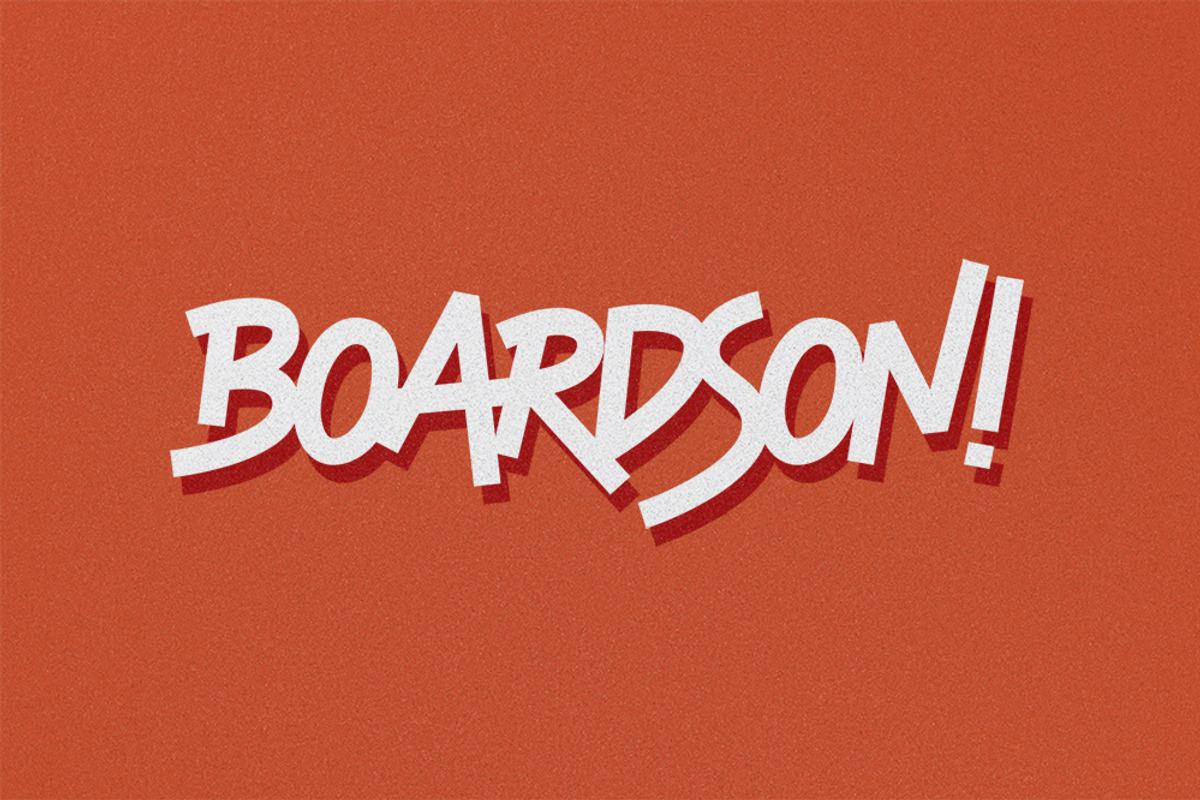
Boardson Type Font Free Download is a bold and vintage-inspired typeface designed to make a strong impression in branding and display design. Please note, you are required to purchase this font for commercial use. It is available for free download for testing and personal projects only.
With its solid structure, classic lettering style, and rugged personality, Boardson is perfect for logos, posters, apparel, packaging, signage, and editorial titles. It evokes a handcrafted, heritage feel—ideal for brands that value authenticity, tradition, and visual strength.